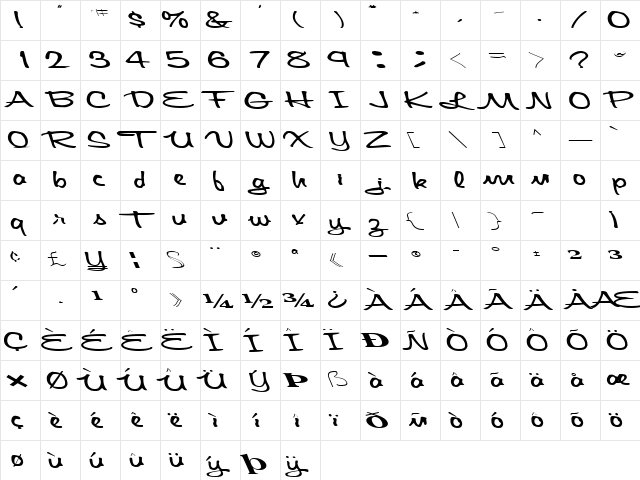
ScriptWriterText Regular
Design Context for ScriptWriterText Typeface
ScriptWriterText brings a calligraphic fluidity to the page — its connecting strokes and expressive curves give it an unmistakably human quality.
Font Pairing: Combine ScriptWriterText with a simple geometric sans for maximum contrast — the tension between flowing curves and clean structure is a classic typographic pairing.
Pro Tip: Pair ScriptWriterText with a clean sans-serif for supporting text. The contrast between fluid script and geometric structure creates an elegant typographic hierarchy.